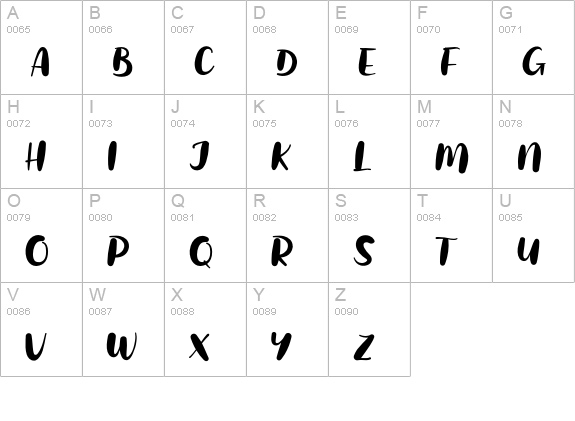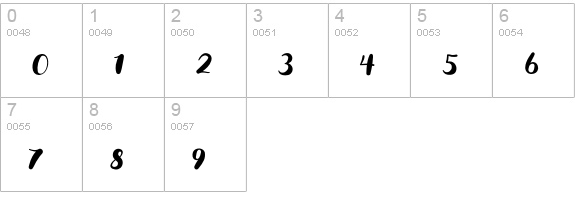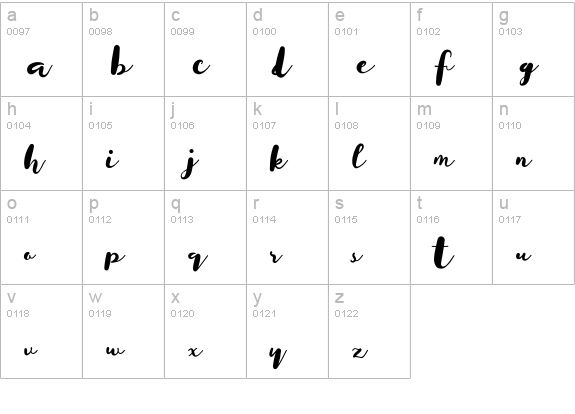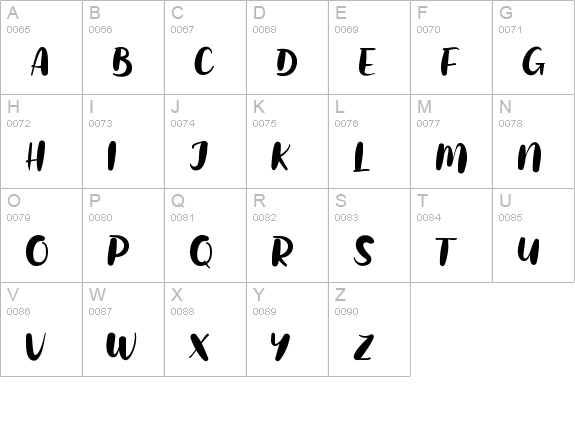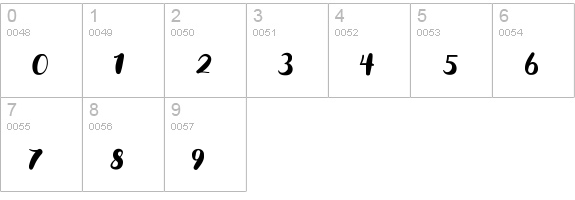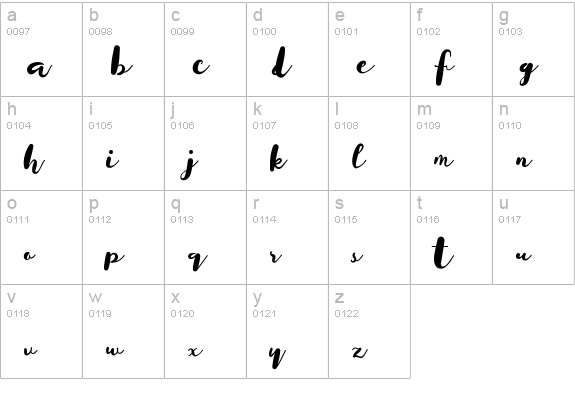
Gullick font is a stunning display typeface that exudes elegance and sophistication. With its unique blend of modern and traditional elements, Gullick font is perfect for adding a touch of class to any design project. Its sleek lines and graceful curves make it an ideal choice for branding, editorial design, and more. The best part? Gullick font is completely free to download at FontsMarket.com. That's right, you can elevate your designs with this exquisite font without spending a dime. Whether you're working on a website, poster, logo, or any other creative project, Gullick font is sure to make a lasting impression. Download Gullick font today from FontsMarket.com and let your creativity shine with this elegant and versatile typeface.